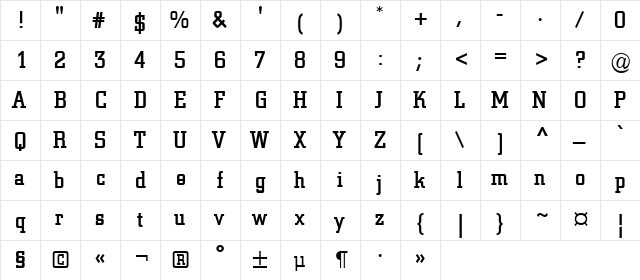
a_CityNova Regular
Design Context for a_CityNova Typeface
a_CityNova offers clean, dependable letterforms without strong stylistic allegiance, making it a practical choice for designers who need flexibility.